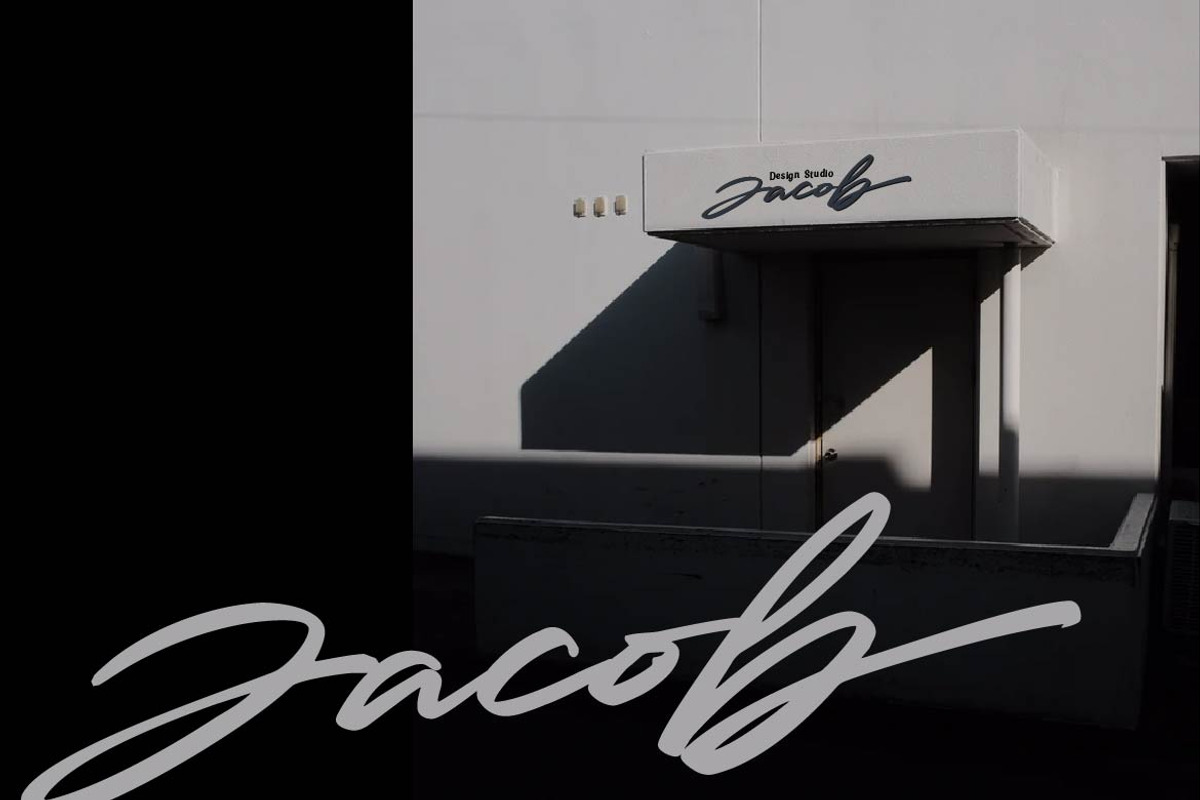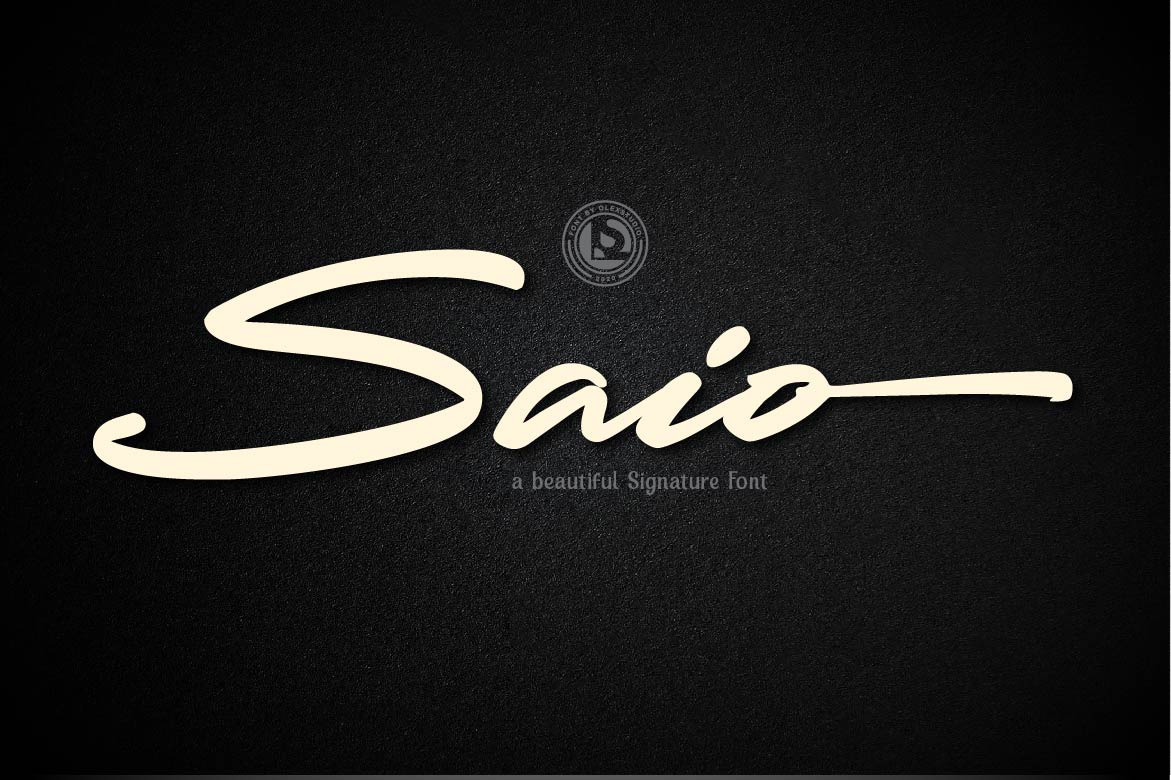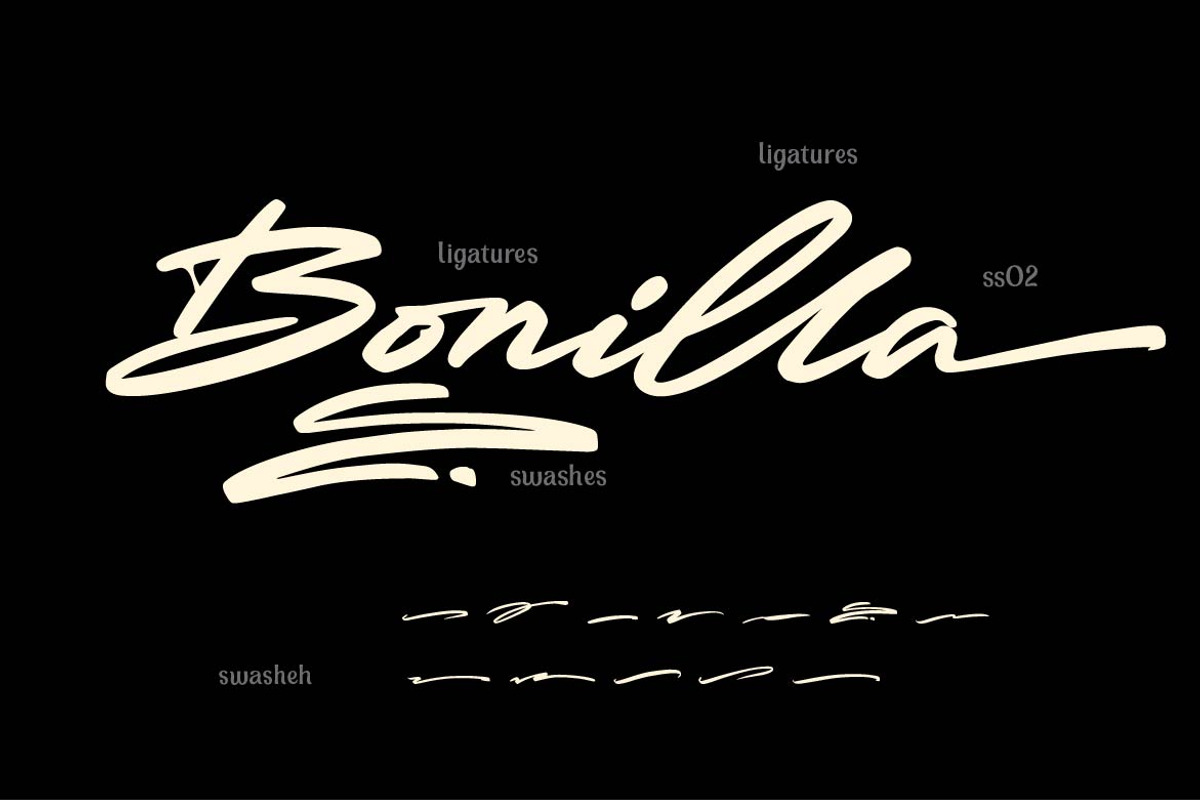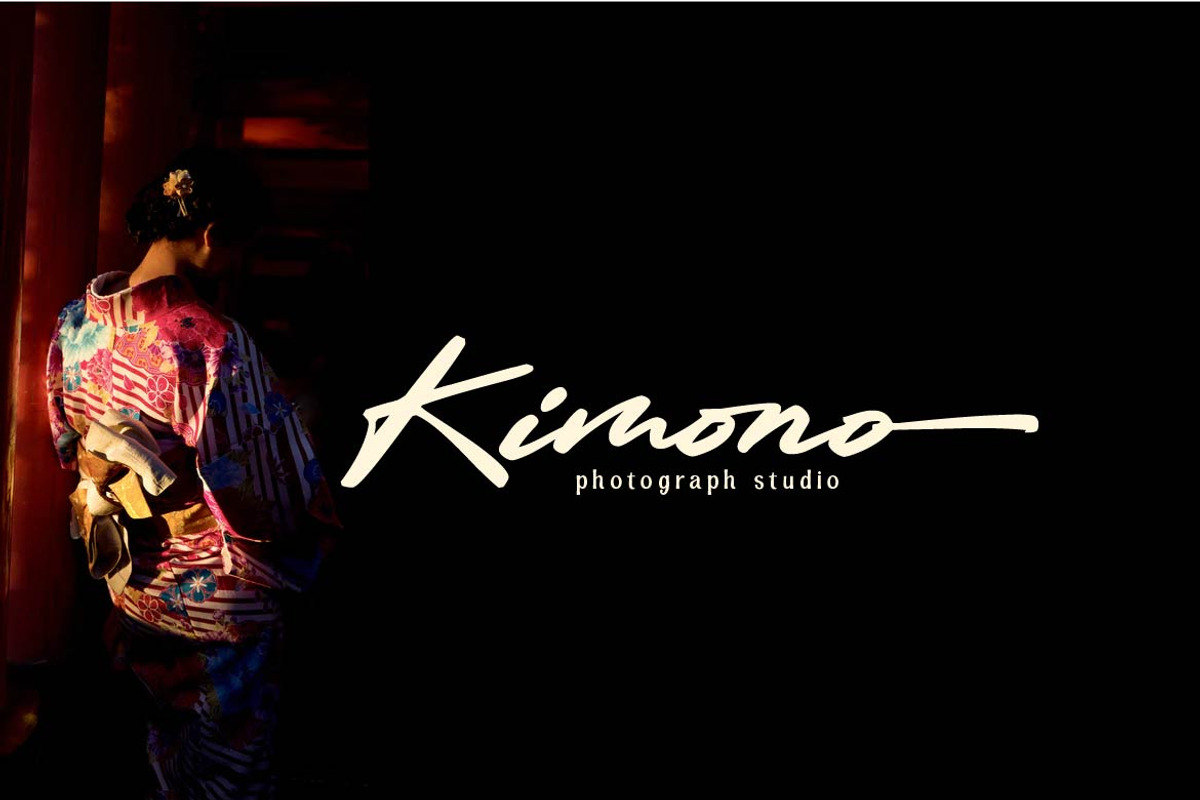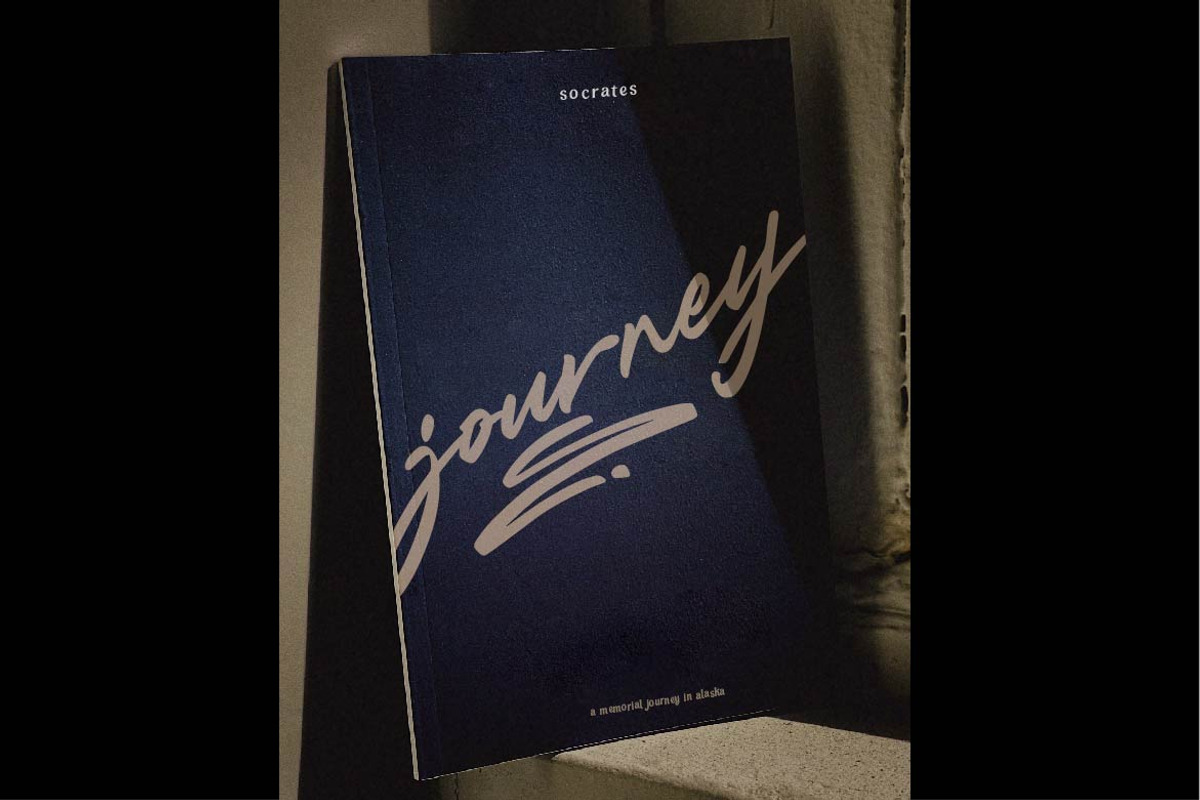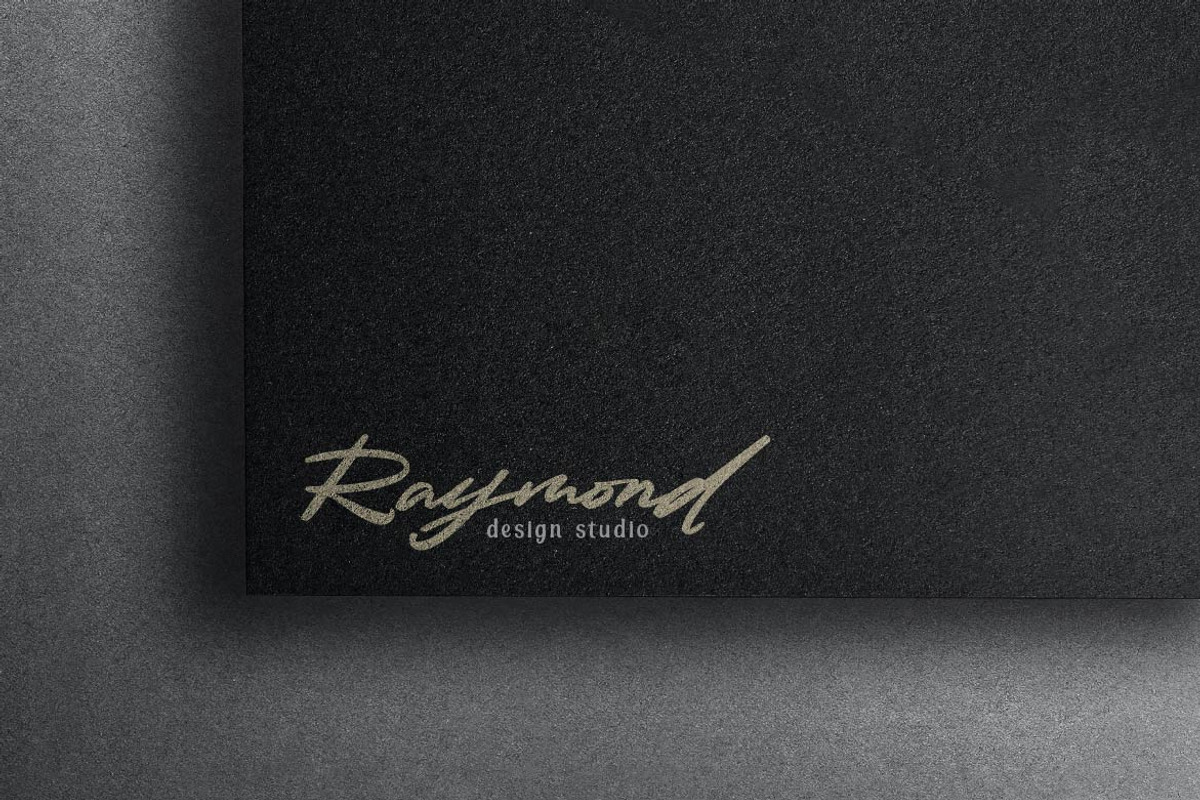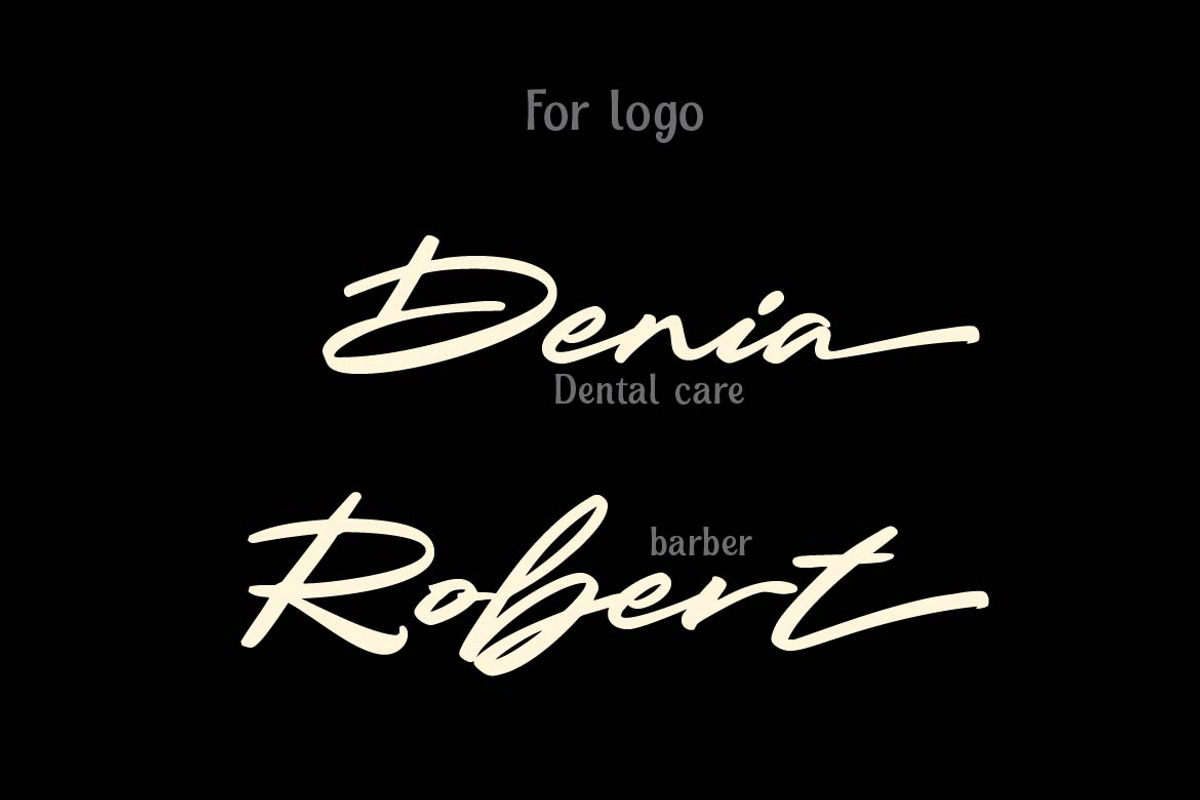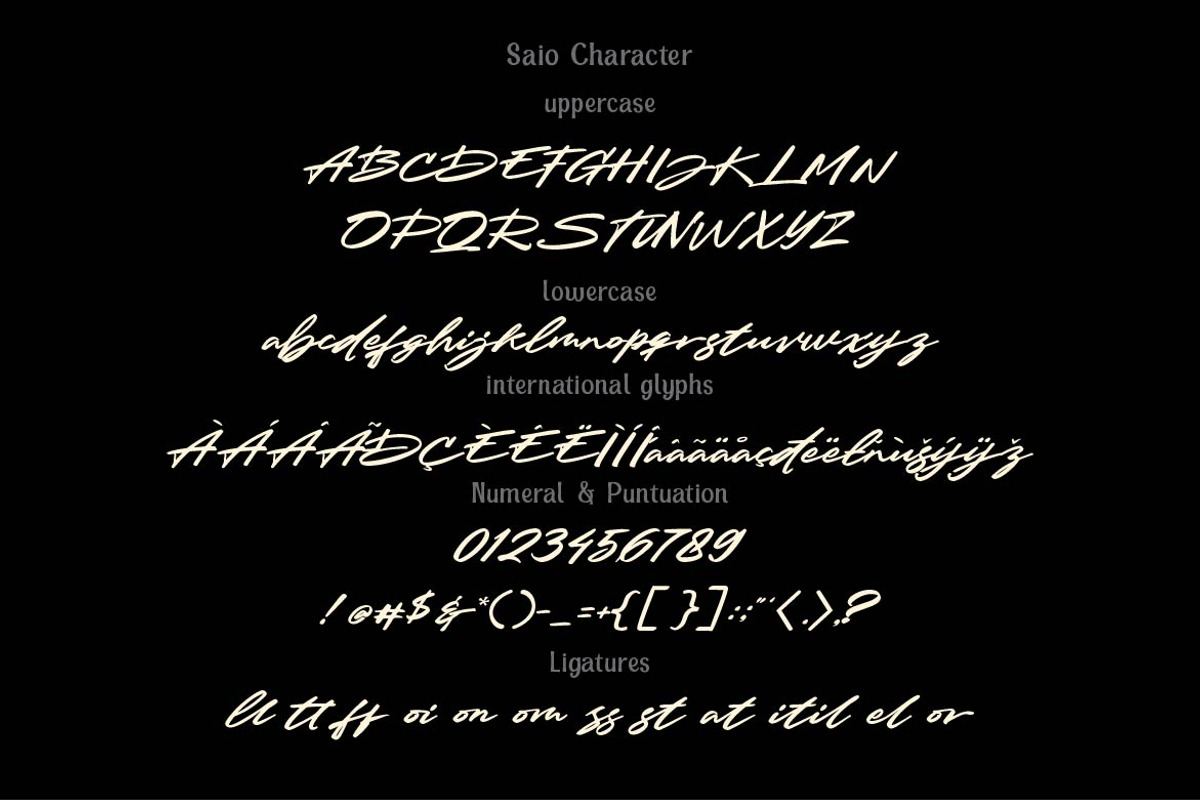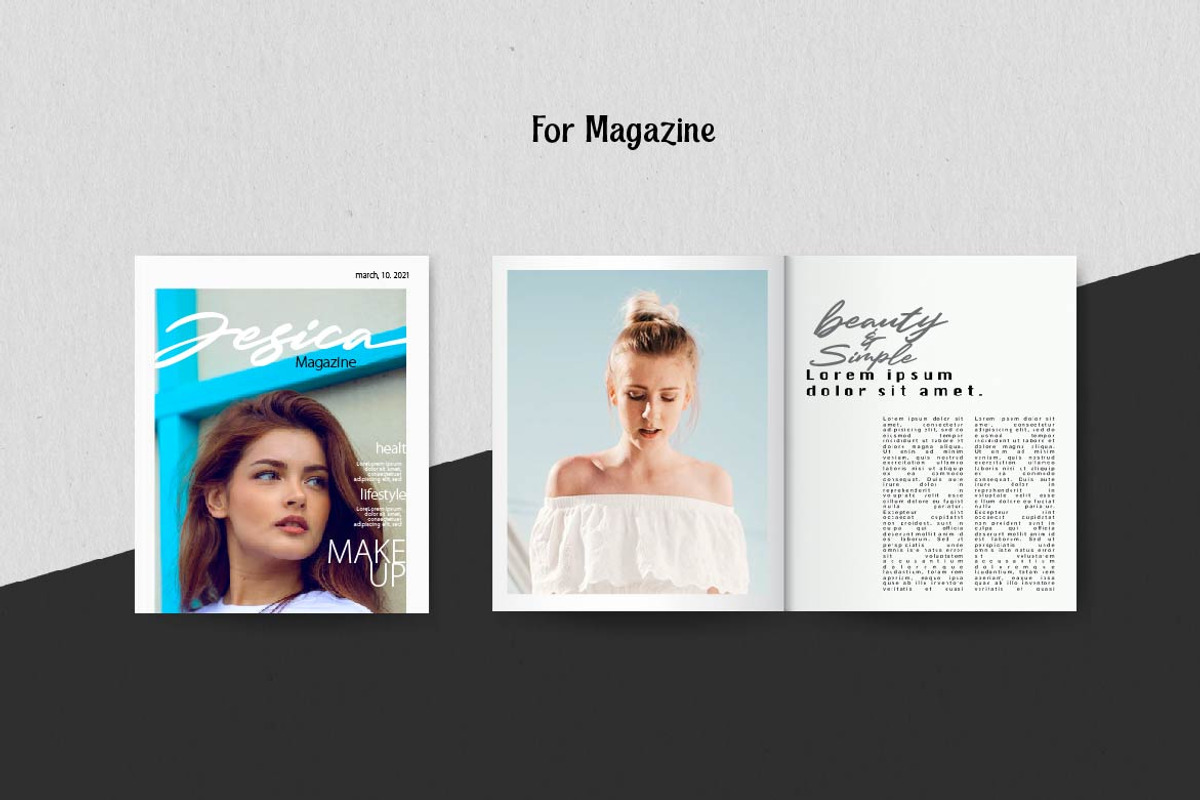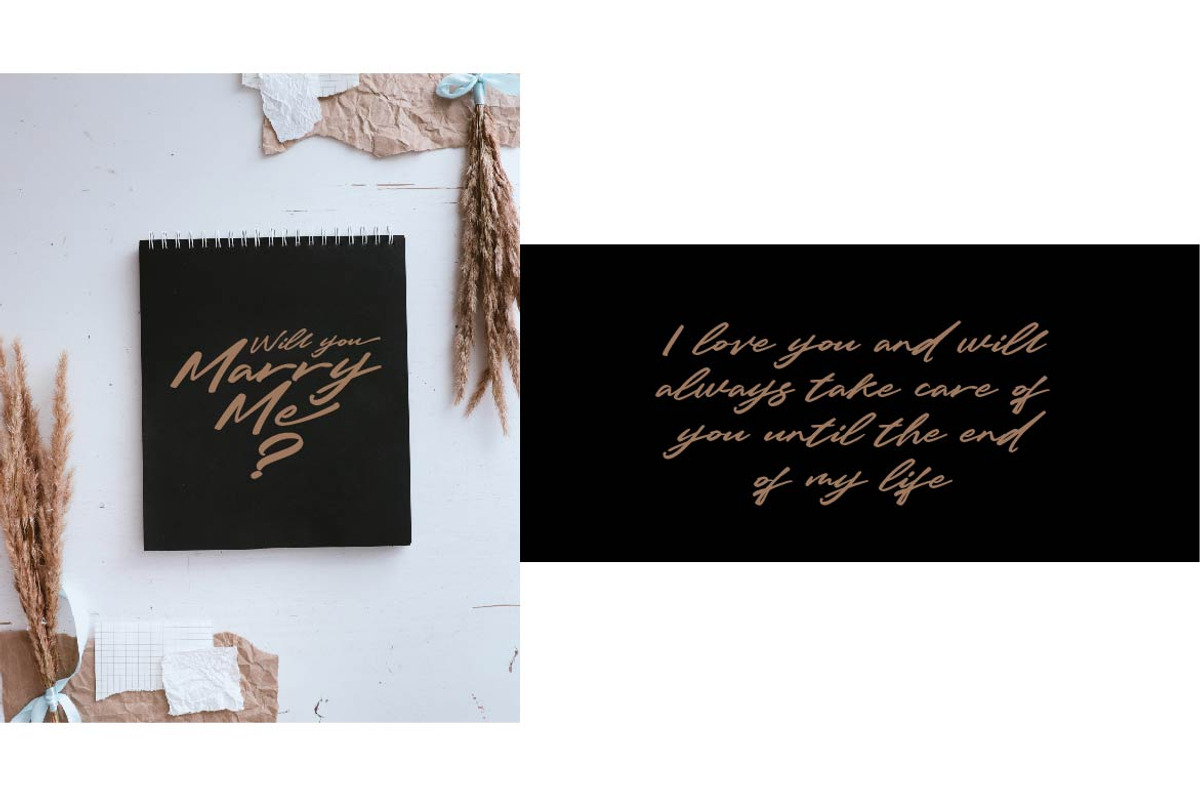
Saio - Signature Font
Saio - Signature Font will look gorgeous on all your designs, invitation, poster design, book design, branding materials, logo's, t-shirt and all project design other.
Saio - Signature Font contains standard characters, Lowercase, lowercase alternates, Uppercase, numbers, punctuation, ligatures and international glyphs. You will receive OTF, TTF files & WEBFONT.